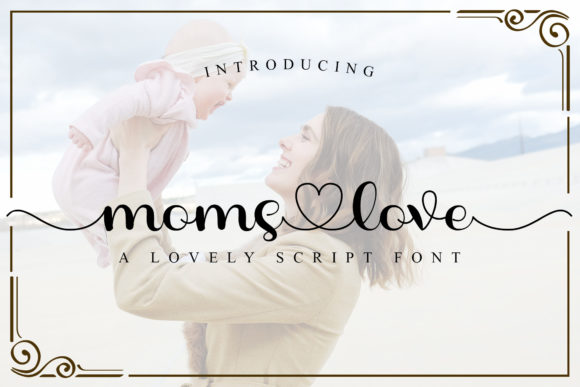
Calling all design enthusiasts and creative visionaries! Embark on a typographic adventure with Moms Love Font, a script font that will ignite your imagination and transform your design projects into masterpieces.
Moms Love Font is a breathtaking handwritten font, meticulously crafted to evoke a sense of warmth, elegance, and sophistication. Its delicate strokes and flowing curves dance across the page, creating a captivating visual experience that will leave a lasting impression on your audience.
Immerse yourself in a world of endless possibilities with Moms Love Font. Its versatility knows no bounds, making it the perfect choice for a wide range of design applications. From heartfelt greeting cards to stylish invitations, captivating social media posts to eye-catching branding materials, Moms Love Font will elevate your creations to new heights.
Indulge in the limitless creative potential of Moms Love Font and watch your designs blossom. Let its enchanting characters add a touch of magic to your wedding invitations, bestow a personal touch on your handwritten notes, or create stunning logos that exude both professionalism and charm.
Unleash your creativity and let Moms Love Font guide you on a typographic journey like no other. Embrace the beauty of handwritten fonts and experience the transformative power of Moms Love Font today!